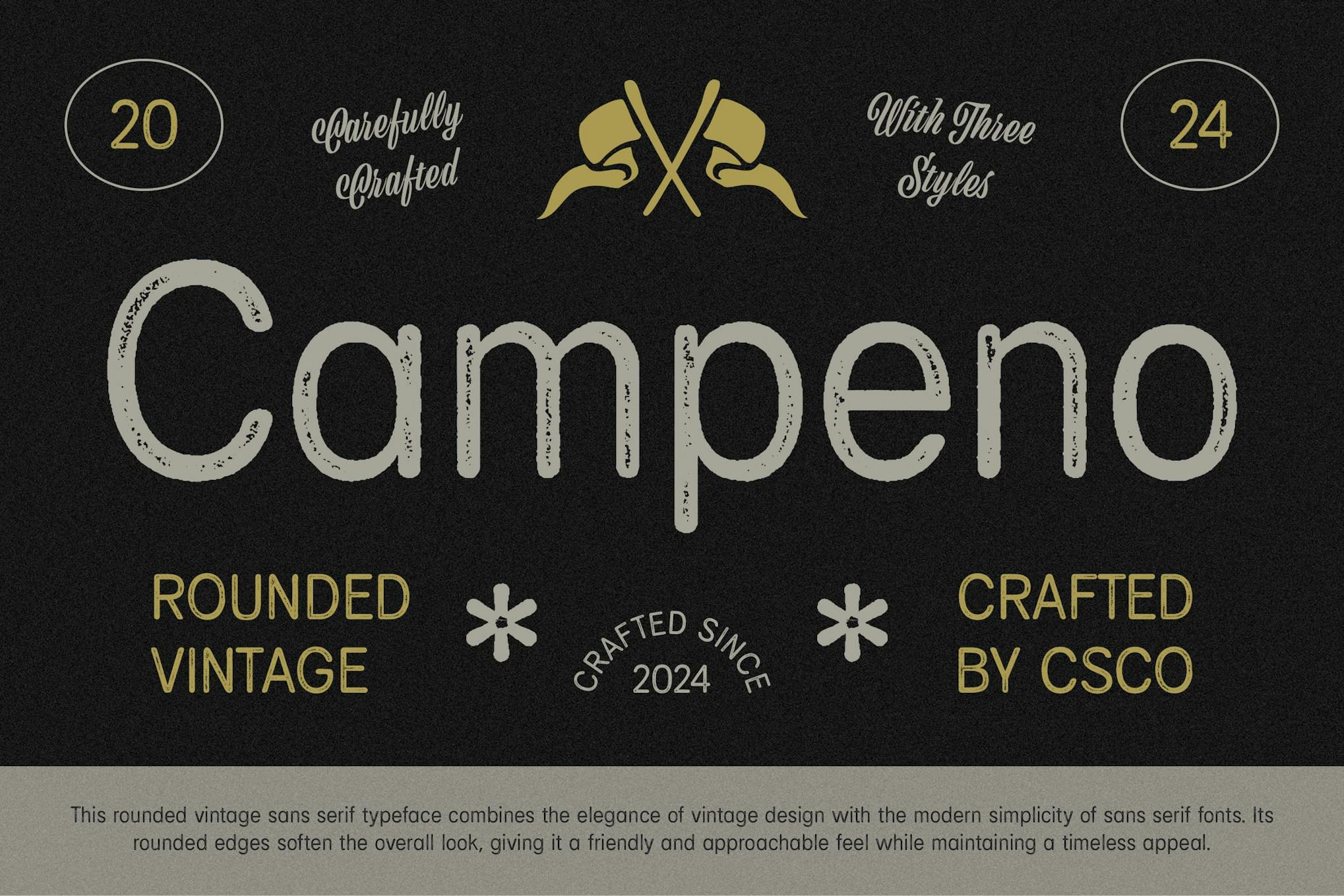
Campeno Rounded Vintage Font
The Campeno Rounded Vintage Font is perfect for retro branding, vintage packaging design, nostalgic poster artwork, classic diner signage, mid-century product labels, throwback advertising campaigns, retro gaming interfaces, and old-school business logos.
What makes Campeno Rounded Vintage Font so exciting is its masterful blend of friendly rounded characteristics with authentic vintage charm that creates an instantly recognizable and approachable aesthetic for nostalgic design projects. This captivating typeface combines the warmth and accessibility of rounded typography with carefully crafted period details that transport viewers to the golden era of mid-20th century design. The font's soft, curved edges create a welcoming and optimistic feeling while maintaining the distinctive vintage character that makes it stand out from contemporary alternatives. Its harmonious proportions and thoughtful spacing ensure excellent readability while delivering that unmistakable retro appeal that resonates with audiences across all generations seeking authentic nostalgic experiences.
The Campeno Rounded Vintage Font family includes versatile variations designed to capture the full spectrum of vintage rounded typography from different design eras. The collection typically features multiple weights from Light to Bold, each preserving the signature rounded characteristics and period-appropriate details. Many versions include italic styles with enhanced vintage flow, alternative characters featuring classic design elements, decorative ligatures inspired by retro signage, and extended character sets supporting international languages for global vintage-inspired branding and nostalgic design projects.
When seeking authentic vintage rounded typography solutions, Campeno Rounded Vintage Font Free Download emerges as the definitive choice for designers creating genuine retro experiences that celebrate the optimism and charm of classic design periods. This exceptional typeface transforms modern projects into timeless visual communications that honor the beauty and friendliness of vintage rounded letterforms.
The font's remarkable adaptability works beautifully across both digital and print mediums, from contemporary websites with retro themes to traditional packaging design applications. Its carefully engineered rounded forms maintain clarity and appeal at all sizes while preserving the distinctive vintage character that makes it so compelling to modern audiences seeking nostalgic authenticity.
Professional designers and creative agencies worldwide trust this charming vintage rounded font for projects requiring genuine retro appeal combined with friendly accessibility. Whether developing brand identities for nostalgic businesses, creating marketing materials for vintage-inspired products, or designing promotional content for entertainment properties, this font delivers the perfect combination of classic charm, rounded friendliness, and professional functionality.